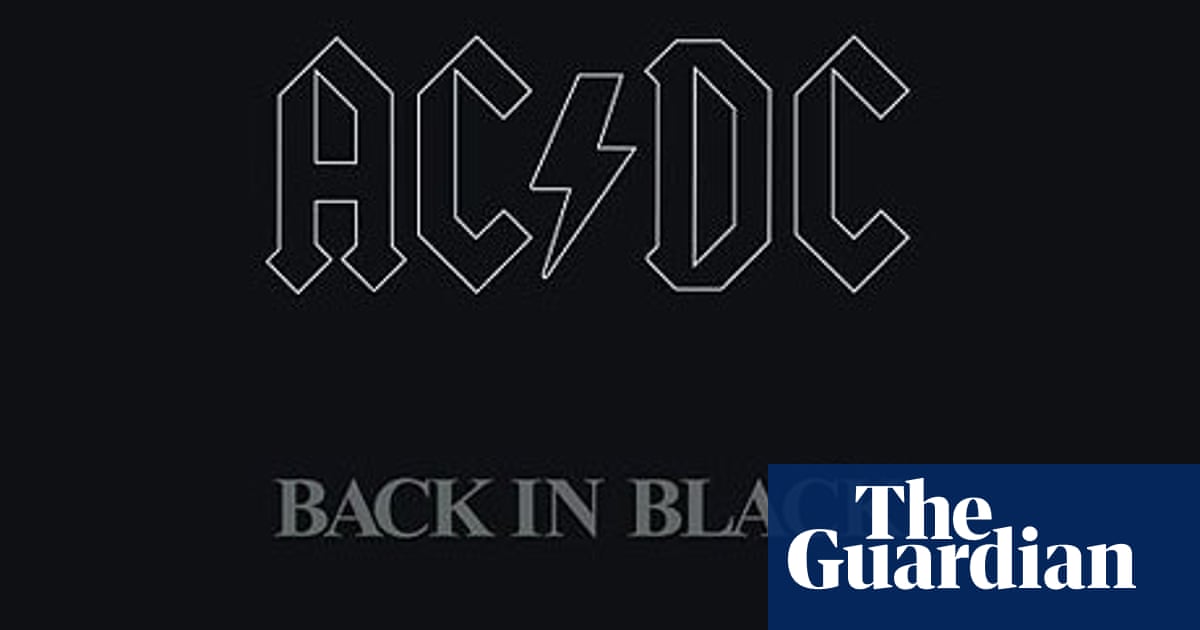
Ac Dc Font
The font used for AC DC logo is very similar to Squealer Regular, which is a free display font designed by Ray Larabie and published by Typodermic. Reply Administrator says October 5, 16 at 858 am. Freehand 575 Font by Bitstream Freehand 575 was published by BitstreamFreehand 575 contains 1 style More about this family.
The AC/DC logo uses a Gothic font style, which the designers derived from Gutenberg’s Bible Huerta insightfully brought the lettering to complement the biblical mood, which pervaded the “Let There Be Rock” album and, particularly, the title. This font includes a license that allows free commercial use sometimes referred to as a desktop license This allows you to install the font on a computer and use it to create posters, web graphics, game graphics, tshirts, videos, signs, logos and more Read the license agreement for details. Hi, I'm using a Win10 64 bit machine (Virtual) with Acrobat reader DC v19, I have tried to install the Extended Asian Language font pack on the same,.
AC/DC (stylised as ACϟDC) are an Australian rock band formed in Sydney in 1973 by Scottishborn brothers Malcolm and Angus Young Although their music has been variously described as hard rock, blues rock, and heavy metal, the band themselves call it simply "rock and roll" AC/DC underwent several lineup changes before releasing their first album, 1975's High Voltage. Looking for Rock And Roll fonts?. Powerage is the fifth studio album by the Australian hard rock band AC/DC, released in 1978 through Atlantic Records The shaky and broken style lettering for both the band title and the album title is very similar to a font named Shatter designed by Vic Carless.
Shatter LET Plain by unknown A font based on the title logo from the album AC/DC ‘Powerage’ The forward slash is modified on the album cover CLICK HERE TO DOWNLOAD!. Try this web font now!. ACDC Font (Squealer) Squealer font can give you the same AC DC look You can use this font to create eyecatching posters, tshirt designs, invitations, brochures, etc Squealer is created by Typodermic Fonts.
AC/DC Font Family Squealer Font is the typeface being using in the logo of the famous Australian rock band AC/DC Designed by Raymond Larabie for type foundry Typodermic Fonts On the other hand, another font family that was used on their debut album High Voltage is Glaser Stencil Font. Generate cool and amazing fonts by using ac dc font generator Simply generate and share with your friends. What's the font used for AC DC logo?.